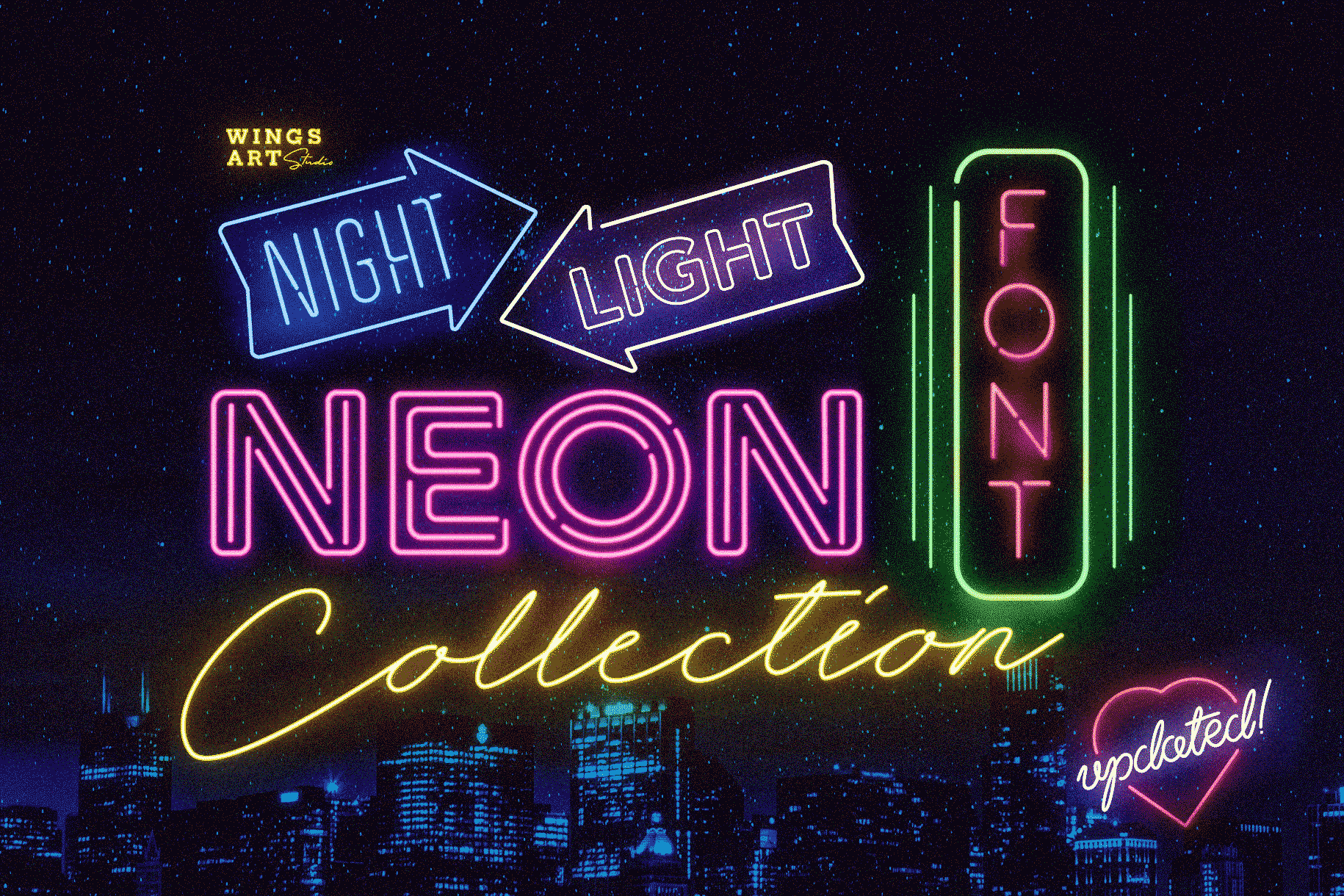
Retro Neon Font Collection
Night Light - The Complete Neon Font Collection by Wingsart Studio
A specially created collection of seven neon inspired fonts giving designers the power to replicate traditionally hand-made lettering from the comfort of their own computer. Choose from the selection of script, sans serif and outline fonts to set your text, then apply our custom graphic styles for a life giving jolt of electricity!
A Realistic Neon Look with the EASE of Traditional Fonts
The appeal of neon lettering lives in it's power to display a message in a functional, eye-catching and timelessly cool way. How many times have you stopped in the street to admire a bar sign or shop front blazing with neon colors? It's aesthetic works equally well for a Hot Dog stand or high-end fashion brand, providing a tried and tested technique for grabbing customer attention.
I've designed these fonts to make the power of neon accessible to all, researching real neon signs, how they are made and paying attention to the human imperfections and inherent limitations (all of which makes them great). This research has been distilled into these essential styles; Script, Outline, Inline, Square and Compressed. These seven core fonts give designers a new opportunity to take advantage of realistic neon lettering in their print and online projects; perfect for music promotion, film titles, YouTube videos and gig posters. Ready to be moulded to any requirement, the power of neon is in your hands.